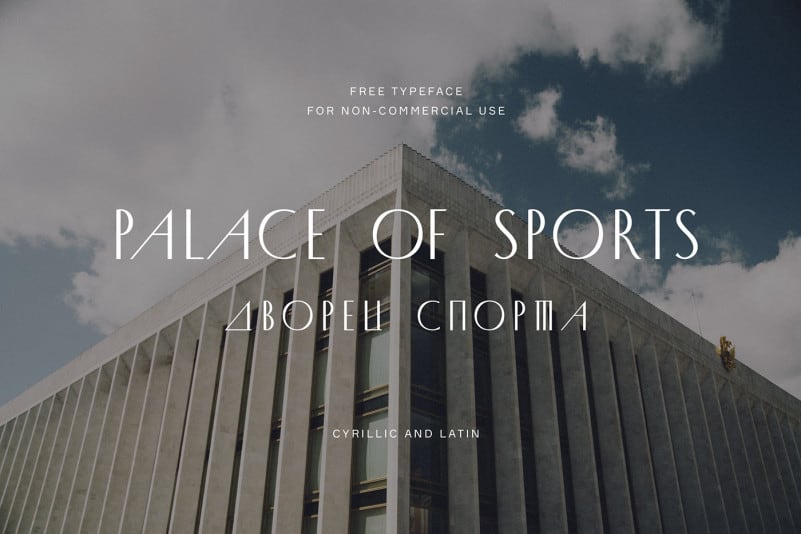
Palace of Sports Display Font
Palace of Sports Display Font is a serif font inspired in the Art Deco Style but with a modern twist. Featuring lovely all caps to engage every title, logo, or branding. This allows infinite combinations to give your project a unique style! Give your text a bit of elegance and personality. Perfect for branding, titles, logos, stationery, body texts, and more.